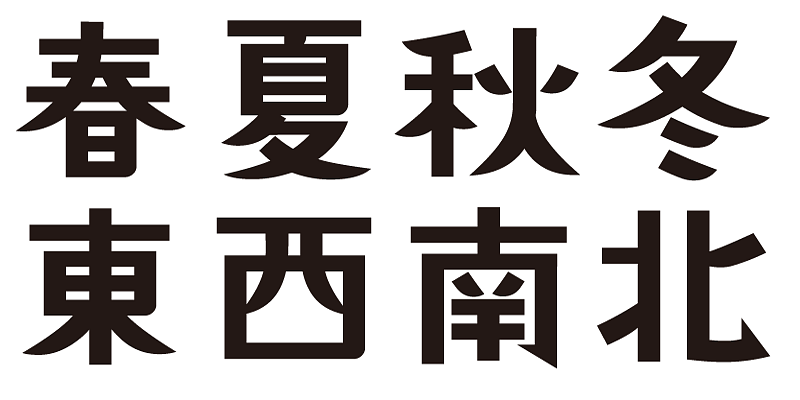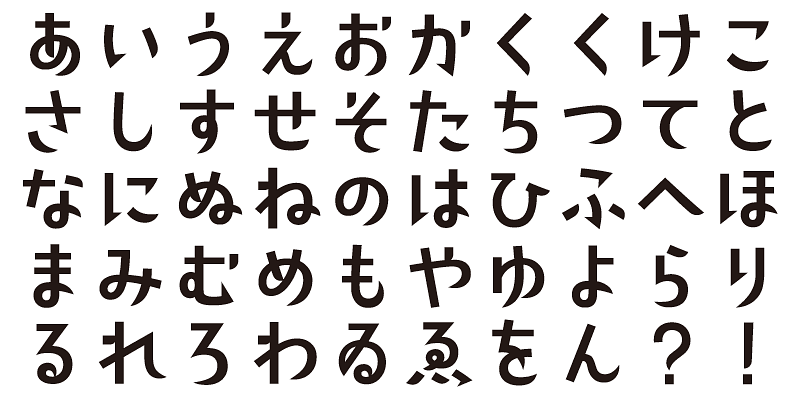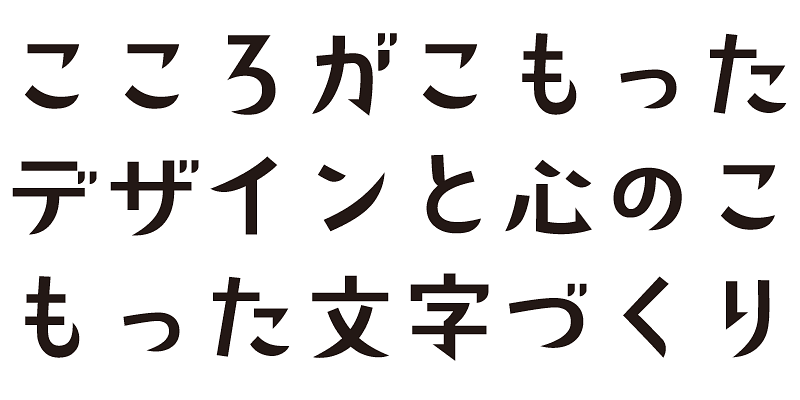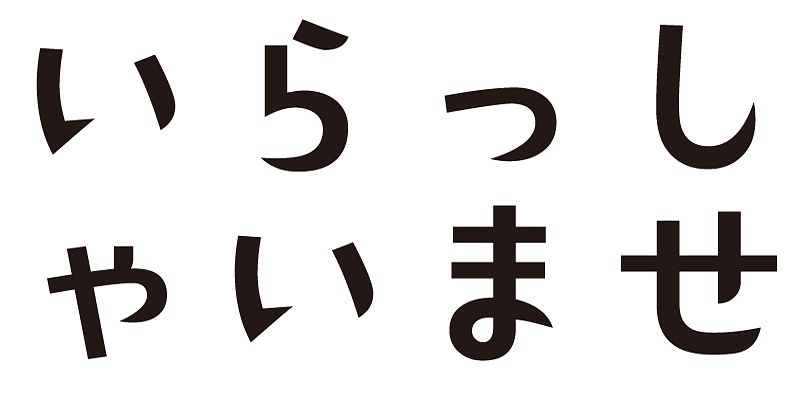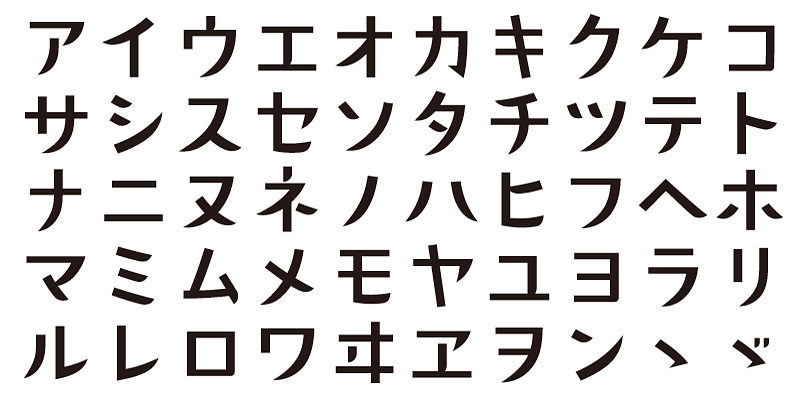
Its right “harai” curved strokes sweep down without stopping, like the left, resulting in a typeface that resembles the hand-drawn lettering of the Showa era in Japan.
Each font in this typeface family includes 1,000 kanji characters, as well as hiragana, katakana, alphanumeric characters, and punctuation marks.
We design typefaces with the hope that they will add underlying meaning to words expressed. We wish the user to feel good and experience comfort and joy when using these typefaces.